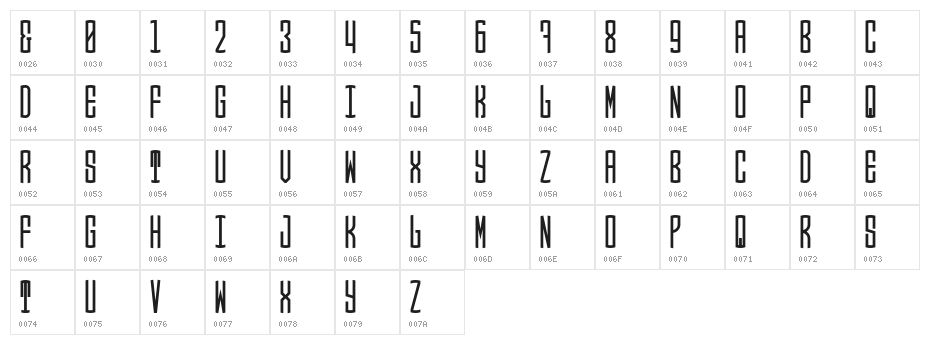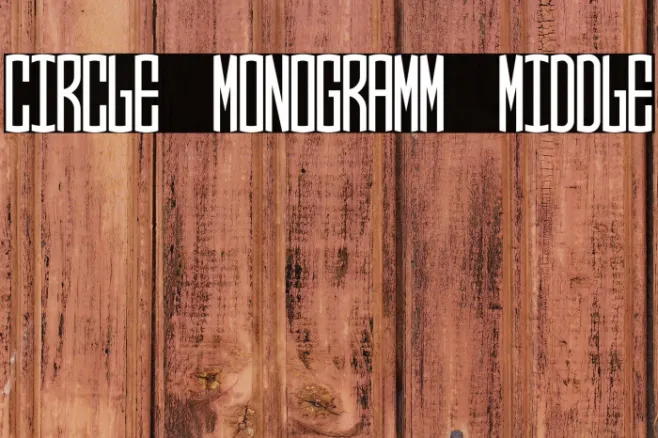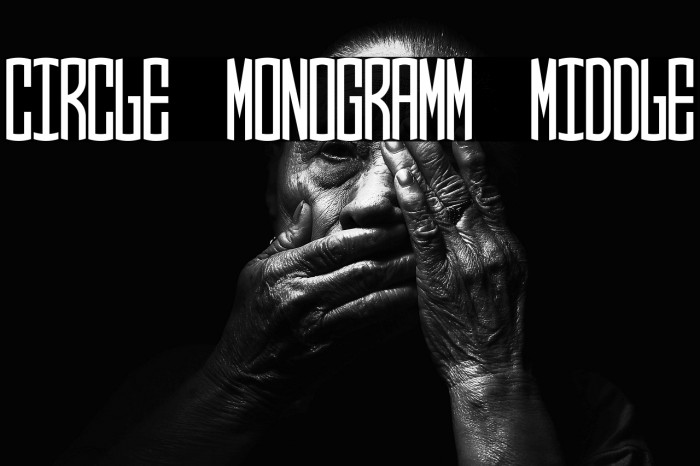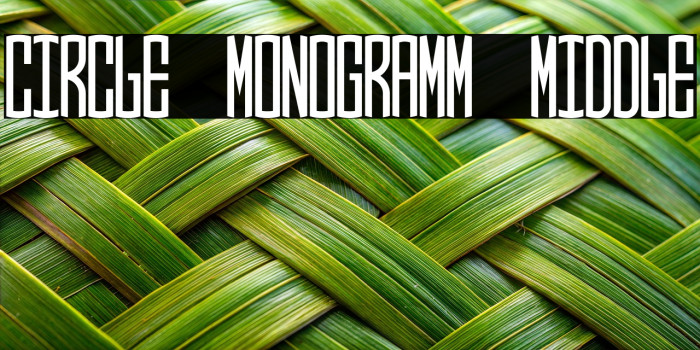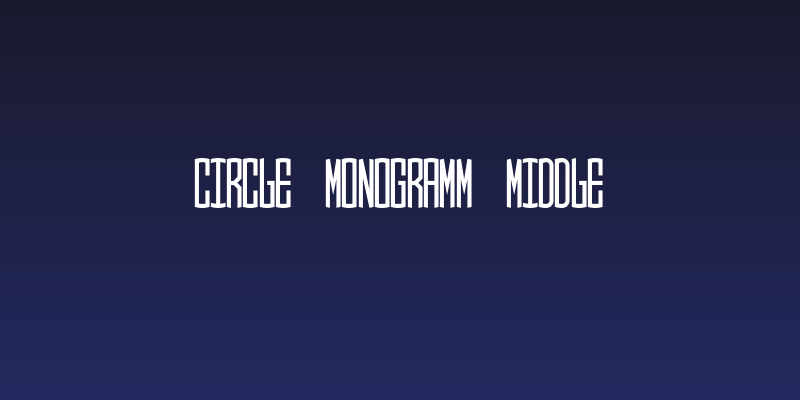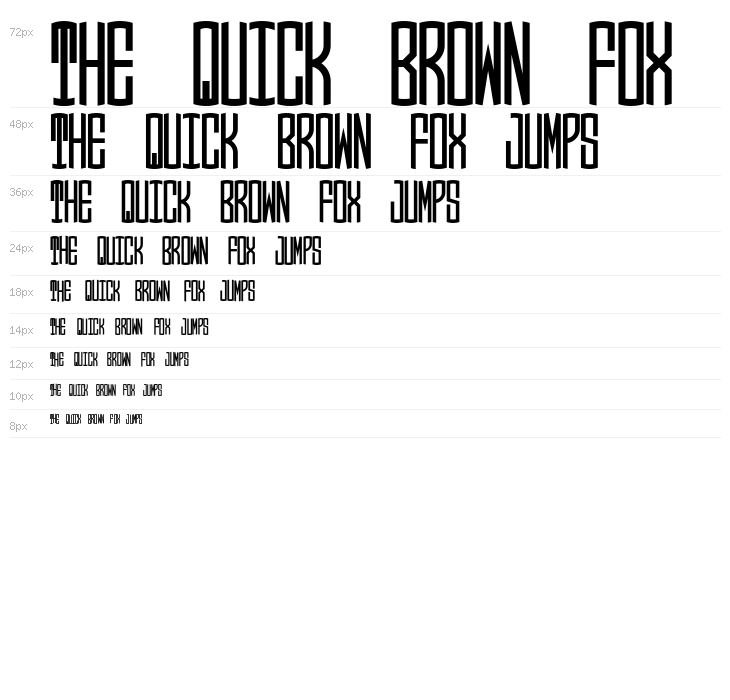
Circle Monogramm Middle Font
Circle Monogramm Middle Description
This font features a bold and condensed style with a modern and geometric appearance. The characters are tall and narrow, with consistent stroke widths that give it a uniform look. The uppercase letters are particularly striking, with sharp angles and clean lines that create a strong visual impact. The numerals and special characters maintain the same design ethos, ensuring a cohesive appearance across all glyphs. This font is ideal for creating monograms or logos due to its distinctive and memorable style.
| Use Case | Logos, Monograms, Branding |
| Proposed Projects | This font is perfect for branding projects, logo design, monograms, and any application where a strong, modern aesthetic is desired. |